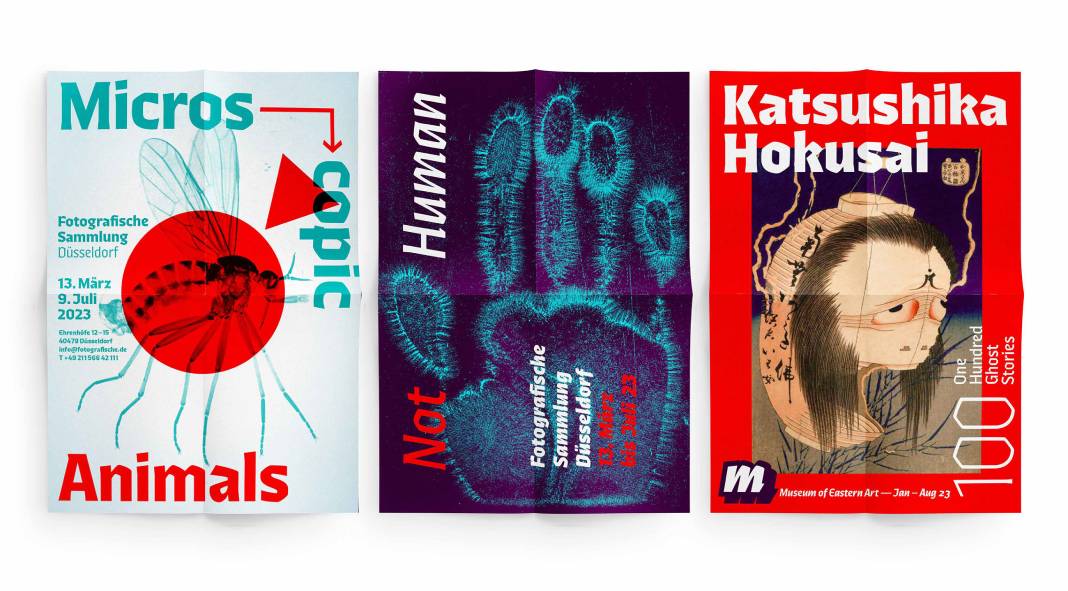
Ferryman: A Bold Departure from Conventional Fonts
Fonts are the building blocks of visual communication, shaping the tone and character of the message they convey. One font family that stands out in the contemporary landscape is Ferryman, a creation by Felix Braden of the renowned foundry Floodfonts. Ferryman reimagines the traditional blackletter script, infusing it with modern legibility and adaptability, making it accessible to a wider audience.
A Fusion of Tradition and Modernity
Blackletter, a script with deep historical roots, holds a unique charm but often poses a challenge for contemporary readers due to its intricate and unfamiliar characters. Ferryman bridges this gap by replacing the less familiar blackletter characters with adapted common Latin characters (Antiqua) or those from other historical scripts that are more easily recognizable to modern eyes. This fusion creates a visually stunning and highly readable typeface that preserves the essence of Blackletter while catering to a contemporary audience.
Expressive and Unique
Ferryman breaks away from the overused geometric and neogrotesk styles prevalent in modern typography. It is an expressive display typeface with a strong character, making it ideal for counterculture projects and progressive concepts. Whether in visual art, indie music, or alternative lifestyles, Ferryman makes a bold statement, enhancing the overall aesthetic and conveying a sense of edginess and creativity.
A Wealth of Options
The Ferryman font family offers a vast array of creative possibilities with its nine weights and corresponding italics. This wide range of styles allows designers to experiment and find the perfect fit for their projects. Each style boasts an impressive 590 glyphs, ensuring support for all Western-, Eastern-, and Central-European languages. Additionally, Ferryman includes four sets of numbers and various currency symbols, enhancing its versatility and usefulness across different design applications.
In conclusion, Ferryman is a testament to the marriage of tradition and modernity, embodying the spirit of the past while embracing the needs of contemporary design. With its striking aesthetics, wide range of styles, and accessibility, Ferryman is undoubtedly a font family worth exploring and integrating into your creative endeavors.